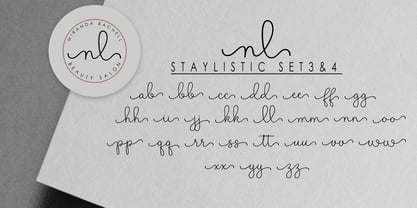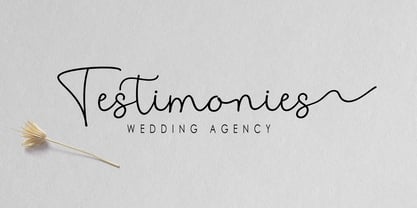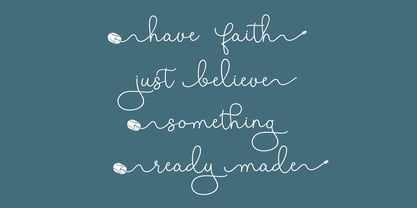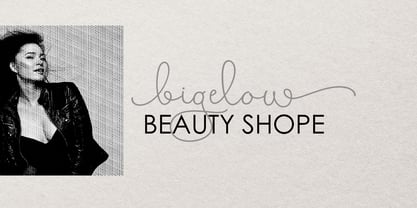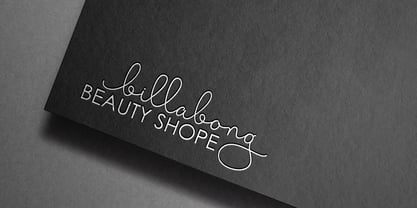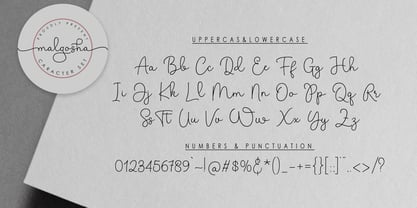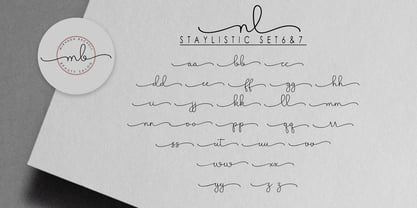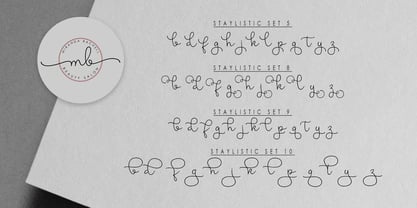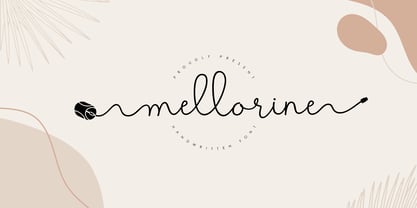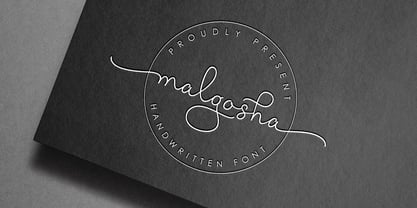
Malgosha
by moriztype
The Malgosha Font Family was designed by Muriza Moriztype and published by moriztype. Malgosha contains 1 styles. More about this family
Introducing malgosha, handwriting script font perfect for wedding stationery, elegant handwritten logos and branding, websites, social media quotes, and more!
Malgosha Features
• Full Set of standard alphabet and punctuation
• Extra set of beginning swashed lowercase
• Extra set of ending swashed lowercase
• Extra stylistic alternates and ligatures
• Multilingual Characters (ÁÂÄÀÅÃÆÇÐÉÊËÈÍÎÏÌÑÓÔÖÒØÕŒÞÚÛÜÙẂŴẄẀÝŶŸỲ áâäàåãæçðéêëèíîïìñóôöòøõœþßúûüùẃŵẅẁýŷÿỳŠšž€£¥ªº)
Designers: Muriza Moriztype
Foundry: moriztype